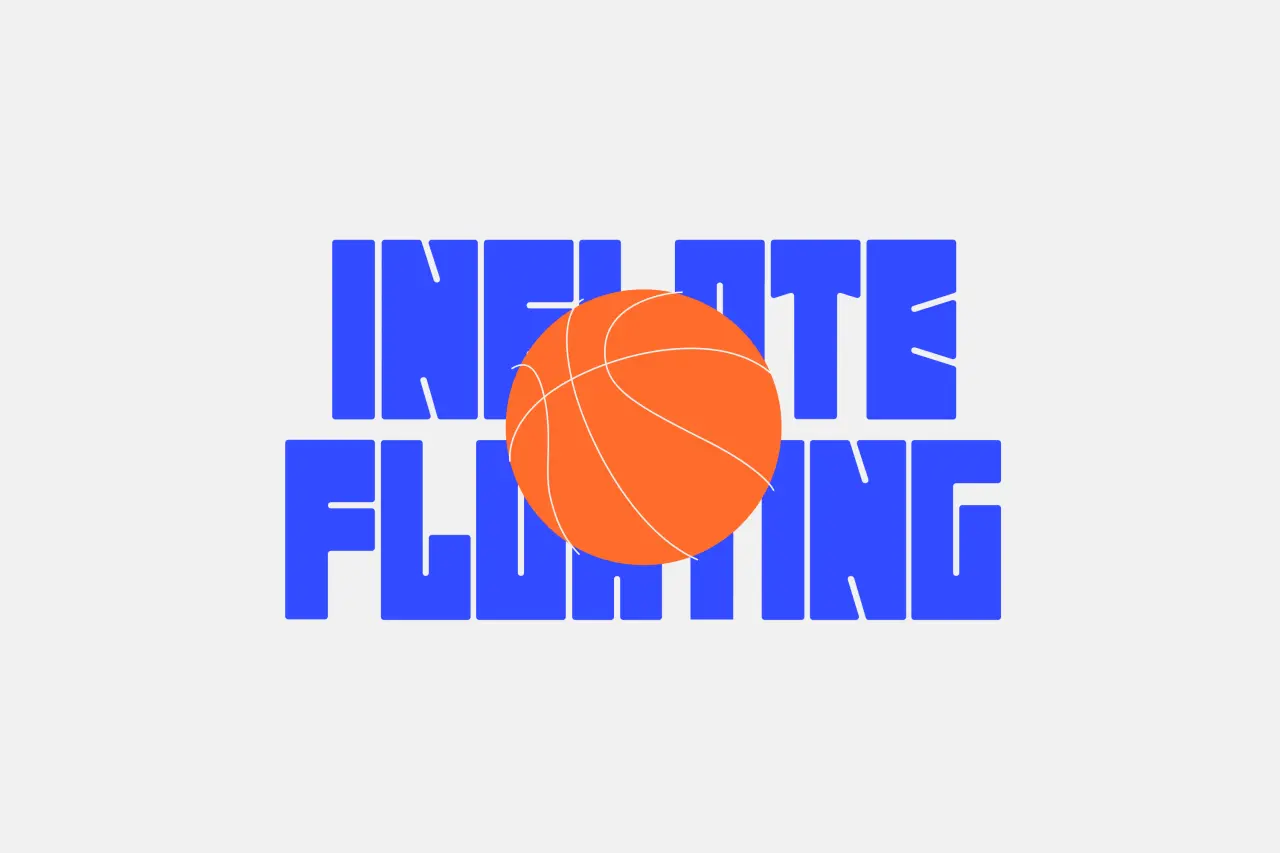
Hot new fonts by independent type foundries and designers this September
This month, give your designs a fresh twist with these top new typefaces from our favourite designers and foundries.
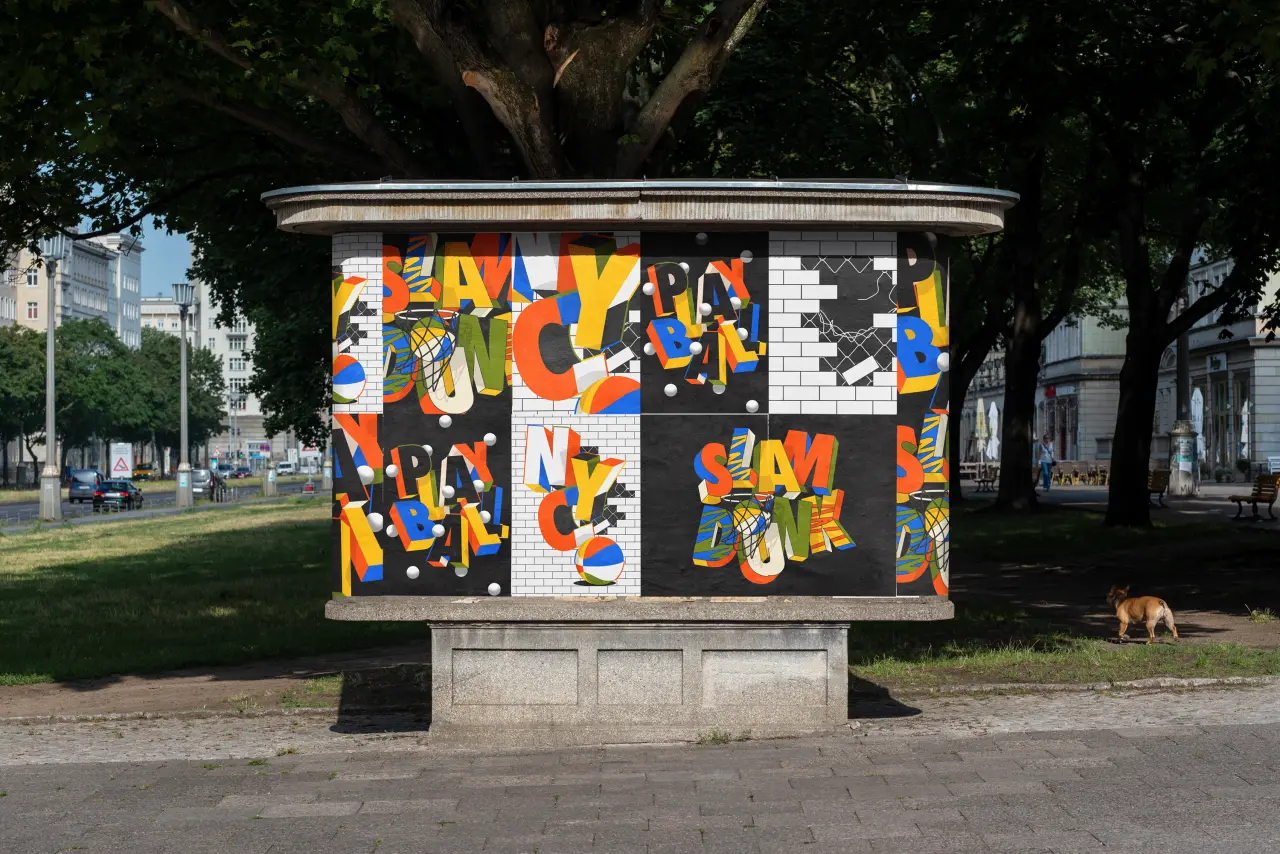
Flake by Gummi Type
It's nearly September. There's a back-to-school feeling in the air, and many of us are finding some renewed energy after a summer of warm, hazy days and quieter spells. And that means we're eager to get stuck into new projects, happily serving our clients. With typefaces no doubt being at the top of your list, we've scoured some of the most exciting foundries and type offerings to inspire you.
From serifs and sans-serifs to display options and stencil typefaces, there's something to suit everyone this autumn thanks to Colophon, Order, Lineto, Playtype, TypeMates, and many more excellent designers.
1. Apta by Colophon
Designed by Hugh Morse, Apta is a sans-serif that takes inspiration from the mono-linear humanist approach of Johnston and the geometric rigour of Futura. It's structured with Roman proportions with a mono-linear build and distinguished by consistent vertically cut terminals. This gives the typeface an engineered quality, while the recurring open apertures allow for an open and even flow. Apta is available in six weights, with corresponding semi-true italics.
2. Etude by Order Type Foundry
Etude is a stencil typeface inspired by the study of type design and experimental music techniques. The name comes from the French verb 'étudier' (to study). The design evokes a broad nib pen, the history of handwritten music notation, and the influence of Jean-Pierre Rousselet's constructed stencil forms. It's available in three distinct weights, and as the family cascades from Light to Bold, these become a crescendo, as soft and delicate turns to loud and more prominent on the page.
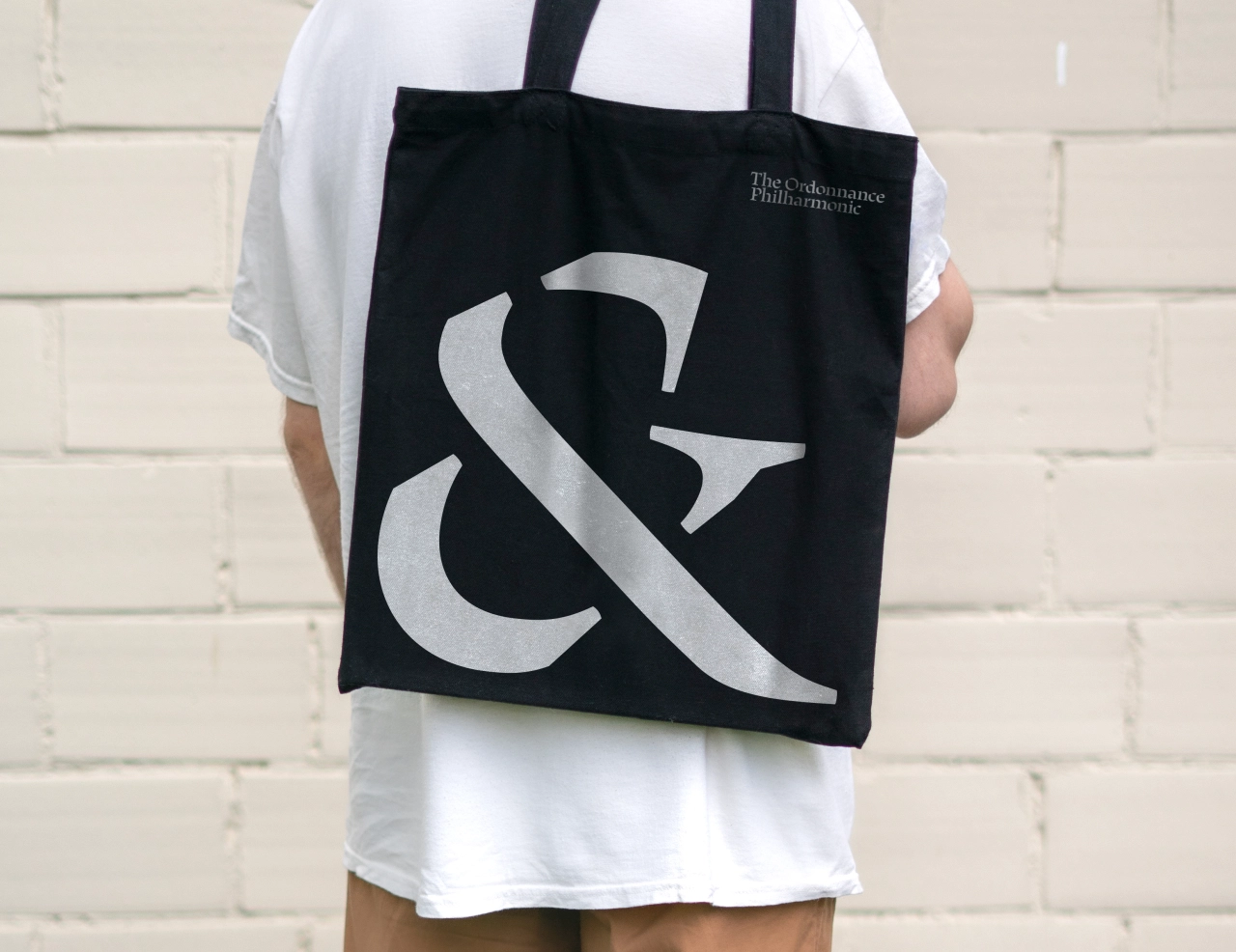
Etude by Order Type Foundry
3. Ruder Plakat by Lineto
Emil Ruder (1914-70) was an iconic typographer of the Swiss Style who originally developed Ruder Plakat as wooden letters with the help of students at Allgemeine Gewerbeschule Basel (AGS) in the early 1950s. In the 21st century, typography teacher Hans-Christian Pulver pulled the designs from the archive and began to develop them digitally. At Lineto, Pulver's drawings were further reworked and expanded by Arve Båtevik, adhering to contemporary principles of type design.
4. System by Frost
System is a modernist, neo-Grotesk sans family influenced by wayfinding infographics in European and US art galleries. Exploring the concept of neo-Grotesk vs Grotesk, the idea was to create two sub-families, Blank and Grotesk: one transparent and another exuding more character. Set in a wide range of weights, this font's optically balanced forms allow it to be used in various places, from logotypes to very small body text.
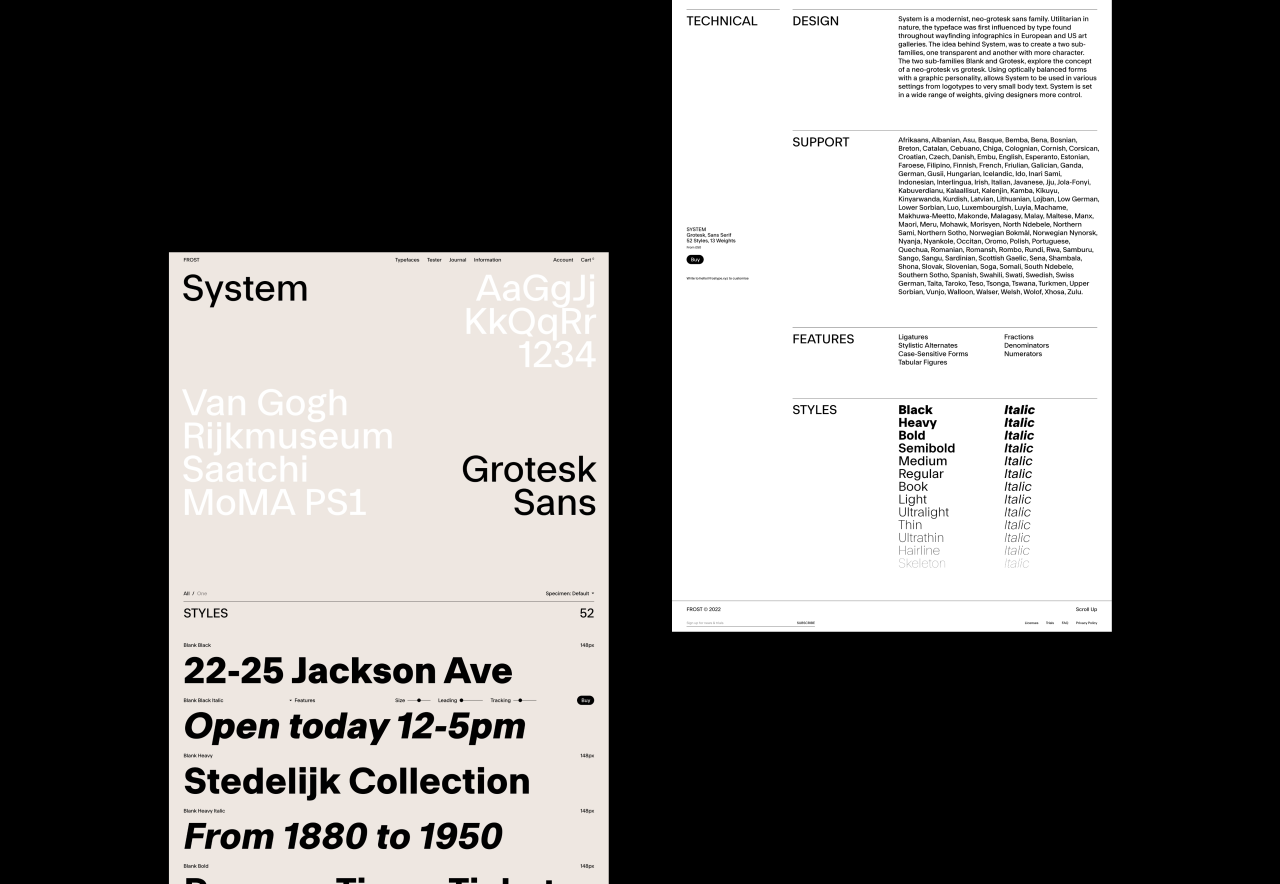
System by Frost
5. Und by Playtype
Und is a playful, colourful font designed by Jeppe Pendrup, who was inspired by the psychedelia styles of the Sixties. It was originally made as a quick uppercase-only display typeface for a Danish fashion brand. But the typeface was so fun to work on, Pendrup decided to develop it further, reworking most of the uppercase, adding round corners, and refining and re-evaluating shapes.
6. Queering by Adam Naccarato
Queering is designed by Adam Naccarato to promote queerness and inclusivity. This open source, bold display font comes with a stylistic set of Unicode emojis and queer-themed iconography, available as glyphs to add in-line. It's free to download on a pay-what-you-want basis, with all proceeds benefiting the Ali Forney LGBT+ Center in Harlem, which provides life-saving housing for Queer Youth, among other great services.
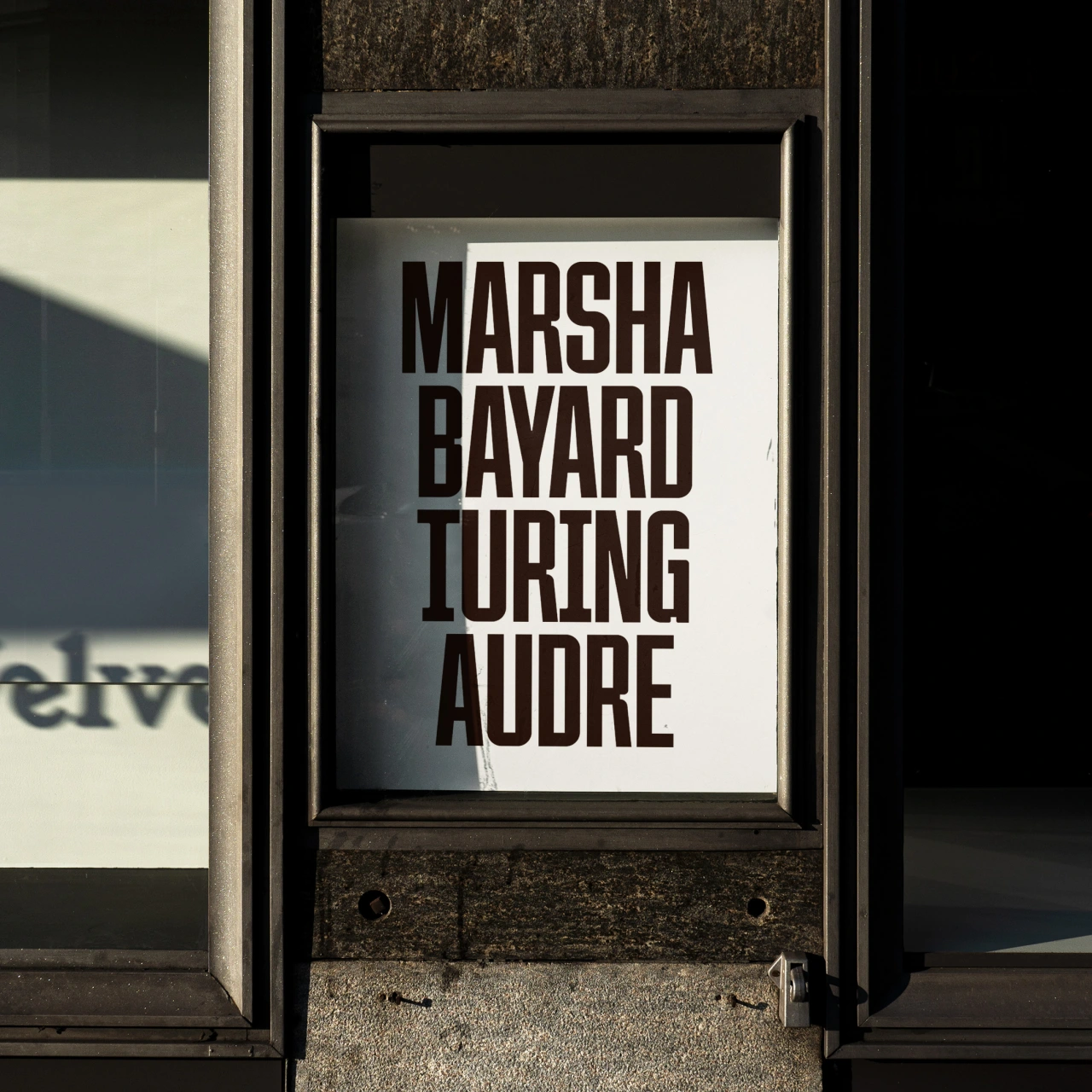
Queering by Adam Naccarato
7. Binate by Bruno Mello
Designed by Bruno Mello, Binate combines the characteristics of a workhorse sans serif with an elegant brush-inspired display style. With its vast range of weights, from Hairline to Black, Binate is as comfortable in the tiny details on packaging as it is in large formats like billboards and posters. Its apertures present a crisp and rigid style that evokes a utilitarian look, while experimenting with some of Binate's lower hooks can give your designs an approachable and friendly feel.
8. Rumiko Sans by TypeMates
Rumiko Sans lures readers to linger on text. Clear, warm and practical, this typeface highlights the fact that readability and personality need not fight each other but can work hand in hand. Its design evolves friendliness and flows: for example, 'a' and 'y' have simple, relaxed forms, while in the 'K', 'R' and 'u', fluid outstrokes lead the eye. Rumiko Sans comes in six weights.
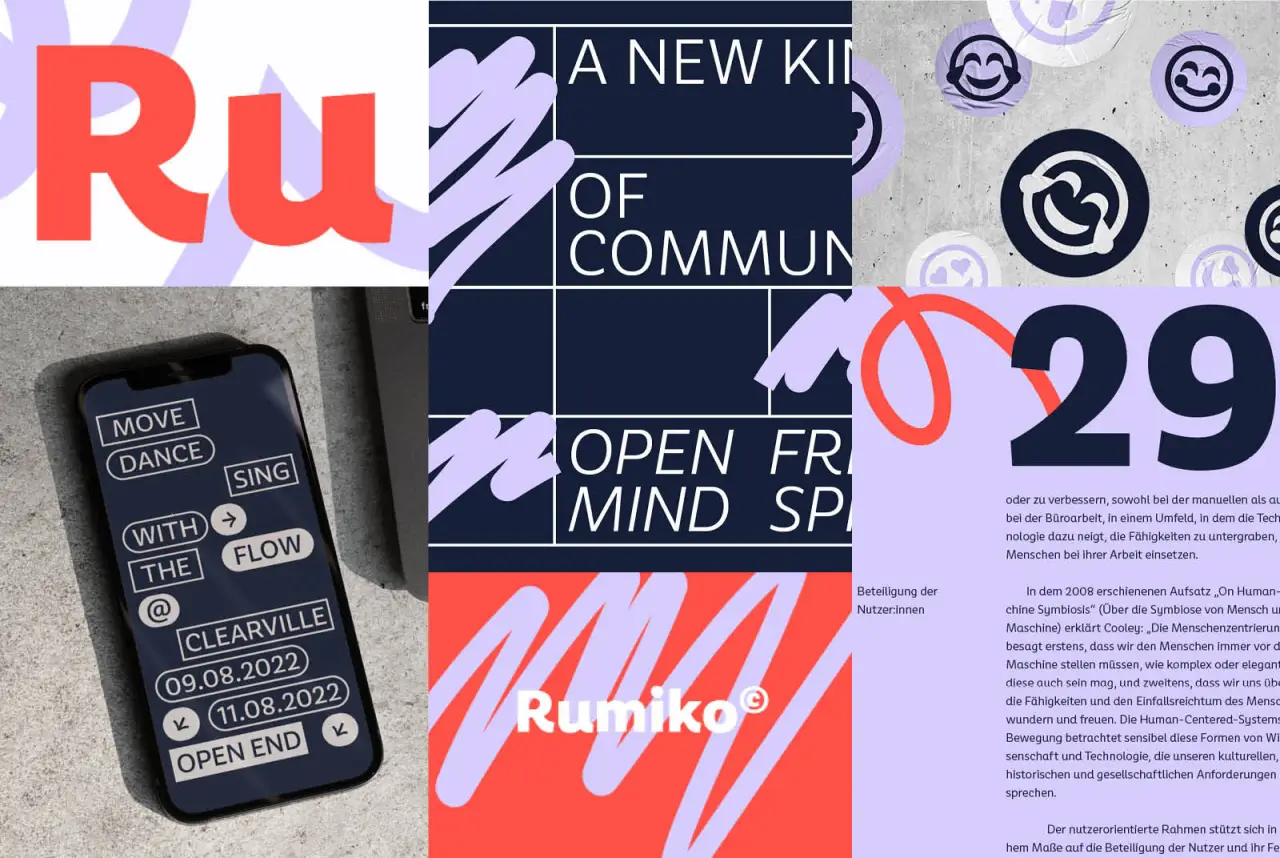
Rumiko Sans by TypeMates
9. FF DIN Slab by Albert-Jan Pool, Antonia Cornelius and Achaz Reuss
FF DIN Slab is a revival of DIN 1451, a German typeface first published in 1931 and widely used in traffic, administrative and technical applications. Designed by Albert-Jan Pool, Antonia Cornelius and Achaz Reuss, FF DIN Slab's serifs are assertive, sturdy and balanced. This typeface has been engineered to emphasise a strong horizontal flow through text, a grounded utility and assurance in headlines. As you'd expect, it harmonises beautifully with other FF DIN styles.
13. NB Television Pro by NBL
NB Television Pro pays tribute to popular typefaces of the cathode ray tube era and translates them for the digital age. With a focus on detail and reference to the CRT grid, Stefan Gandl of Neubau has designed each glyph with pixel-perfect precision. This evokes a warmness when used in small sizes versus a crisp, pixel-dominated modern neo-grotesque at large. NB Television Pro includes six typesets: Regular, 2D, 3D, Mono, Mono 2D and Mono 3D.